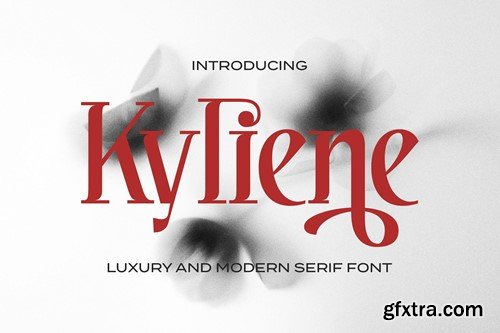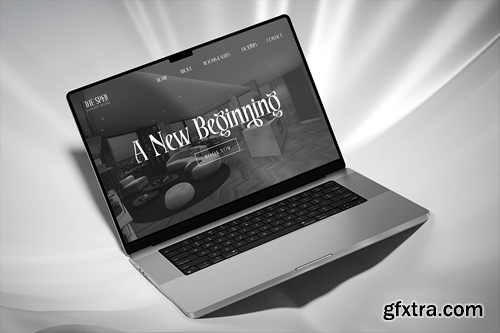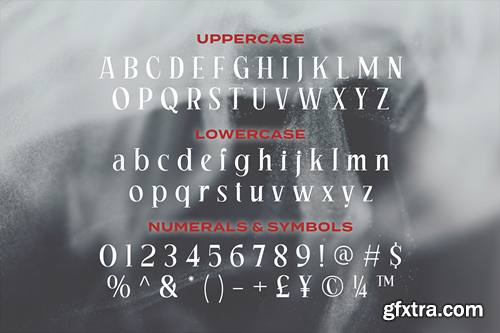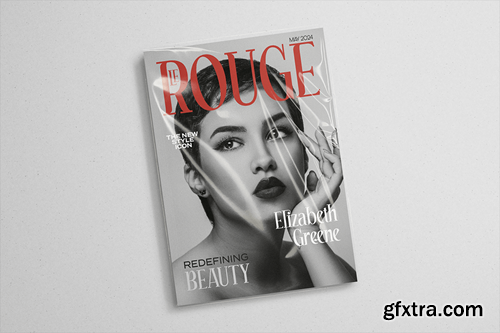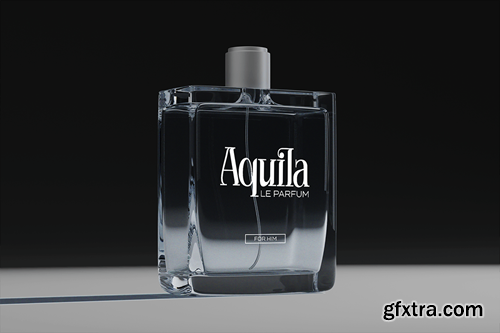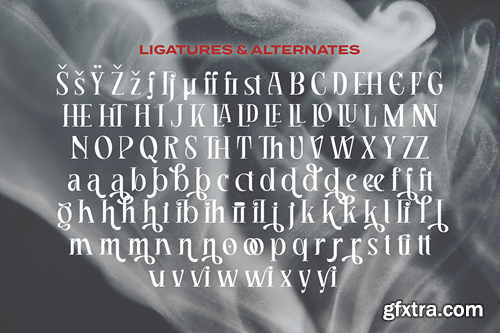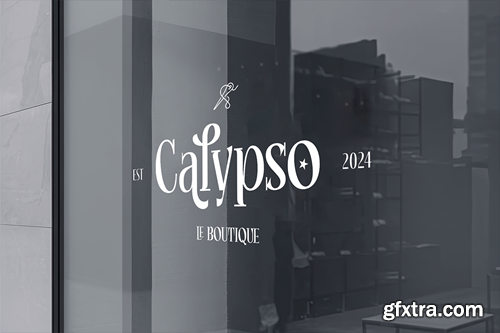
Showcase modern opulence. Introducing Kyliene - A Luxury and Modern Serif Font. Captivate your audience with this elegant typeface. Its sleek lines and refined curves will add a touch of luxury to any design. Unveil the essence of elegance today! What you’ll get: Compatible with: Software Requirements: The fonts that you’ll receive in the pack are widely supported by most software. In order to get the full functionality of the selection of standard ligatures (custom-created letters) in the script font, any software that can read OpenType fonts will work. We hope you enjoy this font and that it makes your branding sparkle! Feel free to reach out to us if you’d like more information or if you have any concerns.